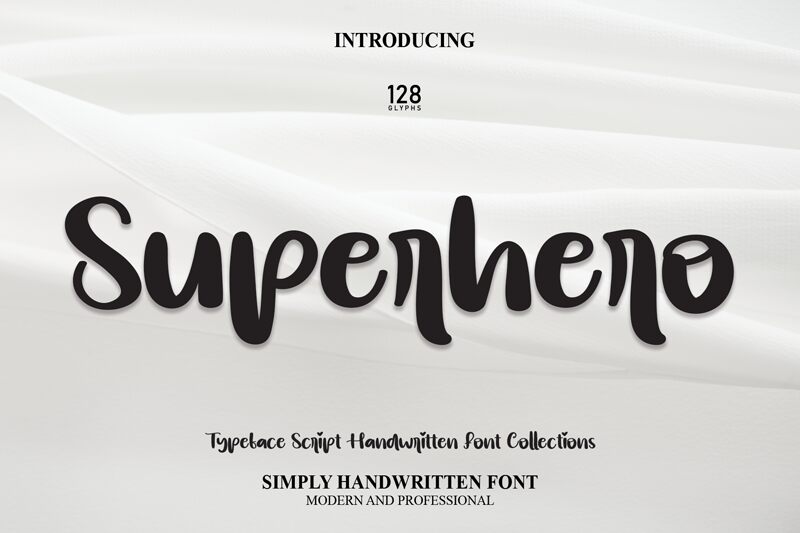
Superhero
The Superhero font, designed by Scratchones, boasts a striking smooth brush style that exudes energy and dynamism. Its bold weight adds a touch of strength and confidence to any project.
With Superhero, you can create eye-catching designs for movie posters, comic books, or gaming graphics that capture the essence of bravery and heroism. This font is also perfect for crafting attention-grabbing headlines on websites or social media posts.
Let Superhero transform your projects into powerful visual narratives that leave a lasting impact on your audience.